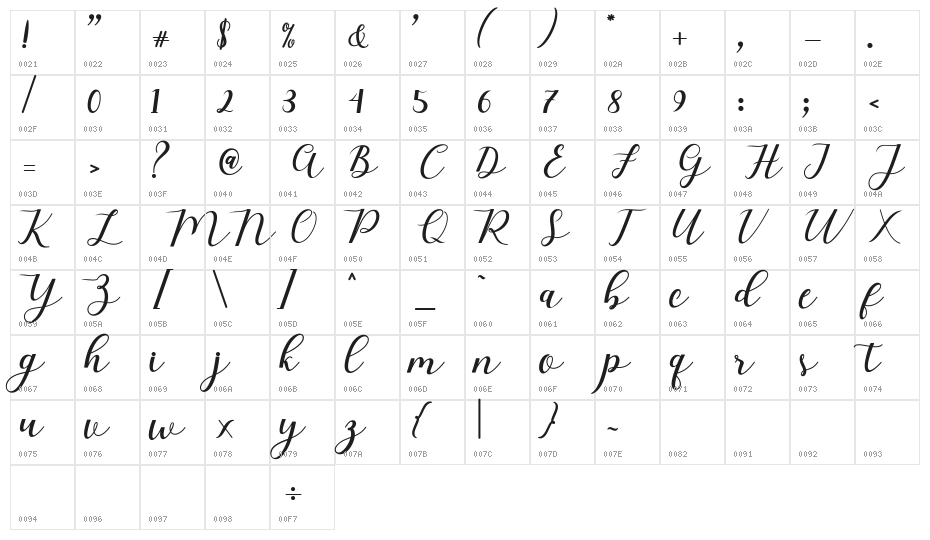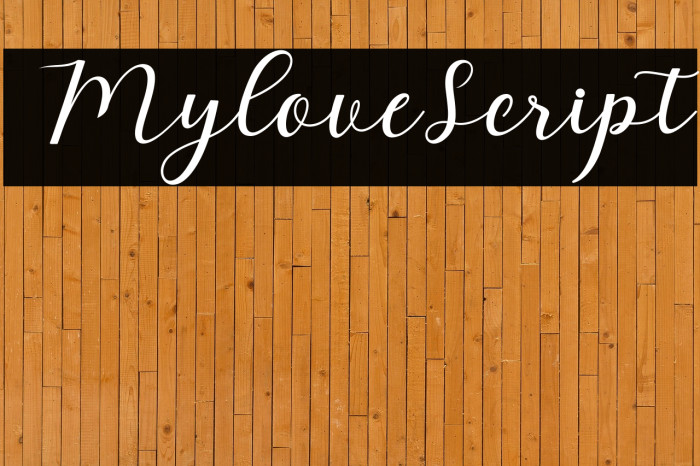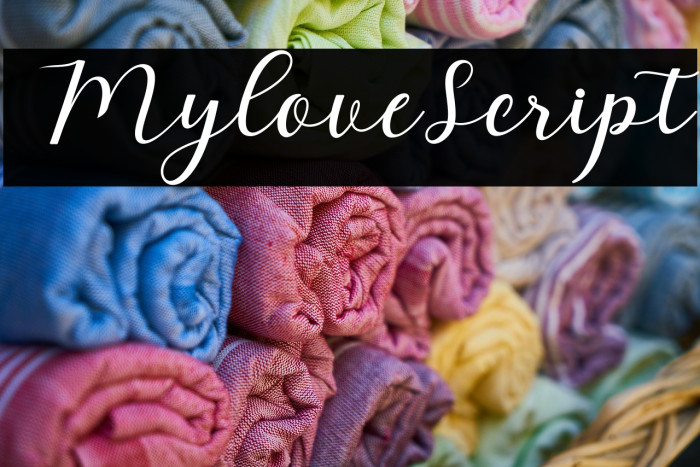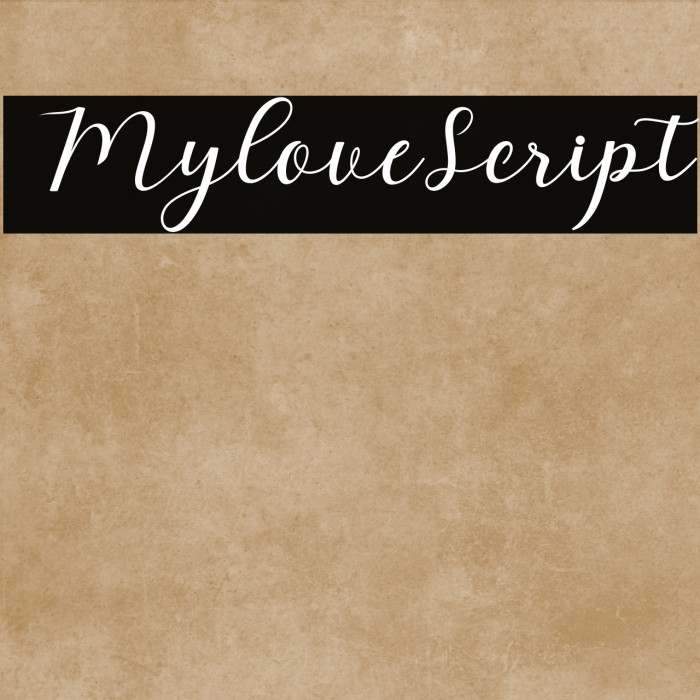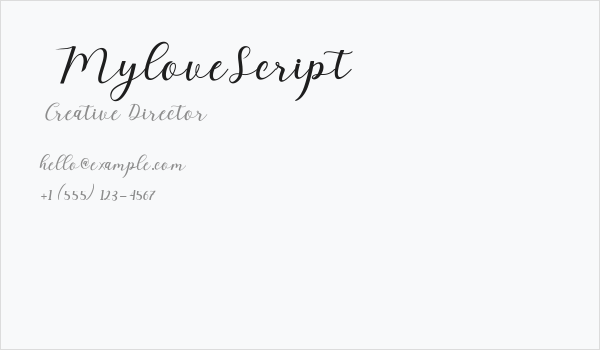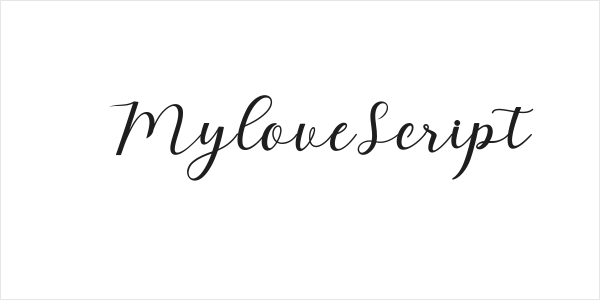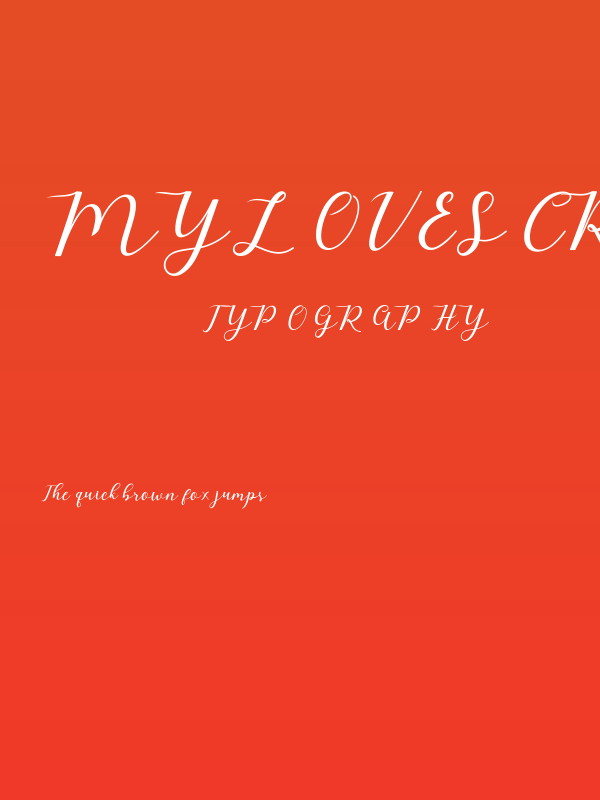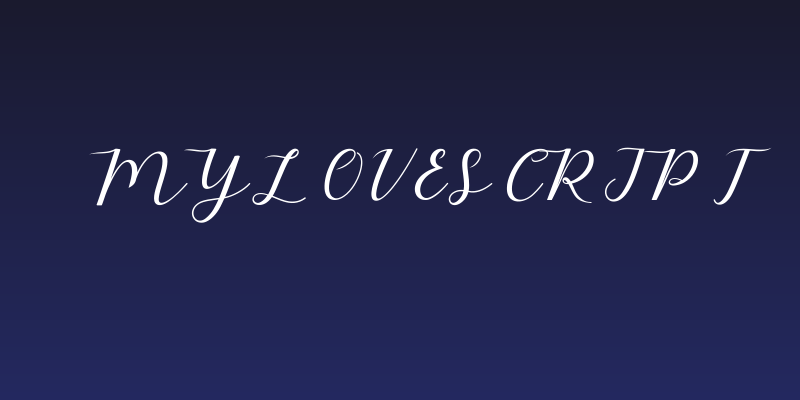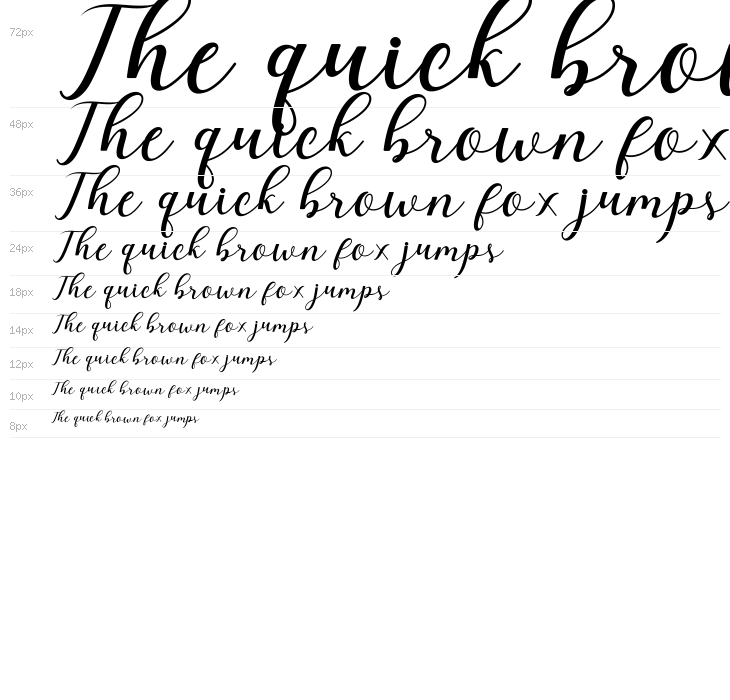
MyloveScript Font
MyloveScript Description
This font exudes elegance and sophistication with its flowing script style. The characters are beautifully crafted with smooth, sweeping curves that give it a graceful and romantic feel. The uppercase letters are particularly ornate, featuring intricate loops and flourishes, while the lowercase letters maintain a more understated elegance. The numerals are consistent with the overall style, offering a harmonious blend of curves and lines. Special characters are thoughtfully designed to match the aesthetic, making this font versatile for various design needs. Its overall appearance is both classic and modern, making it suitable for a wide range of applications.
| Overall Style | Elegant, Romantic |
| Proposed Projects | Ideal for wedding invitations, branding, greeting cards, and elegant packaging designs. |